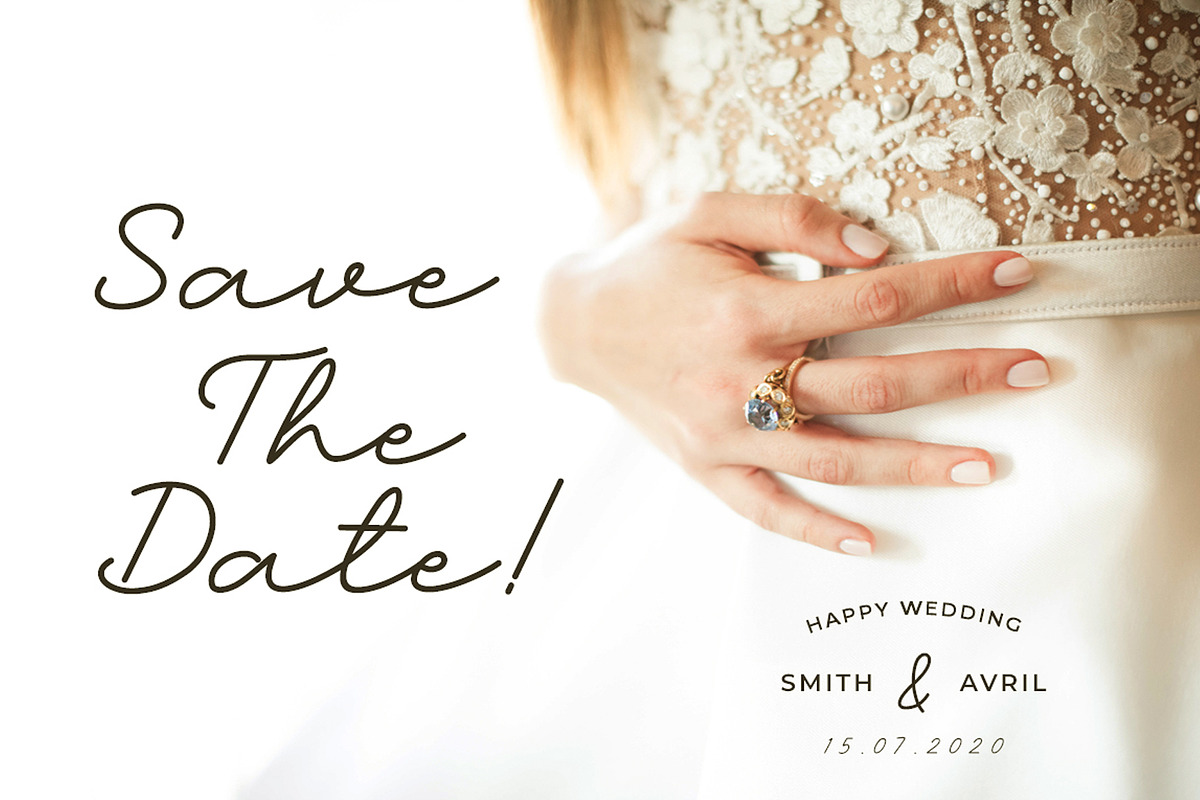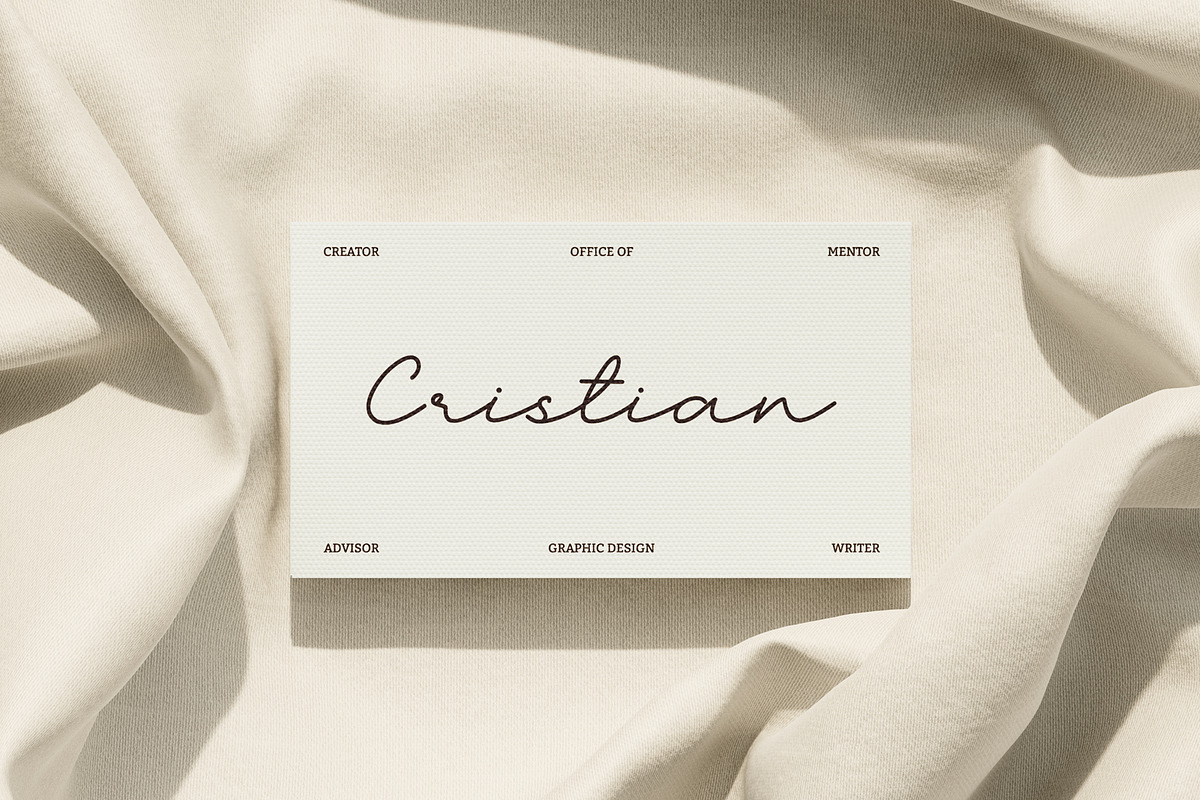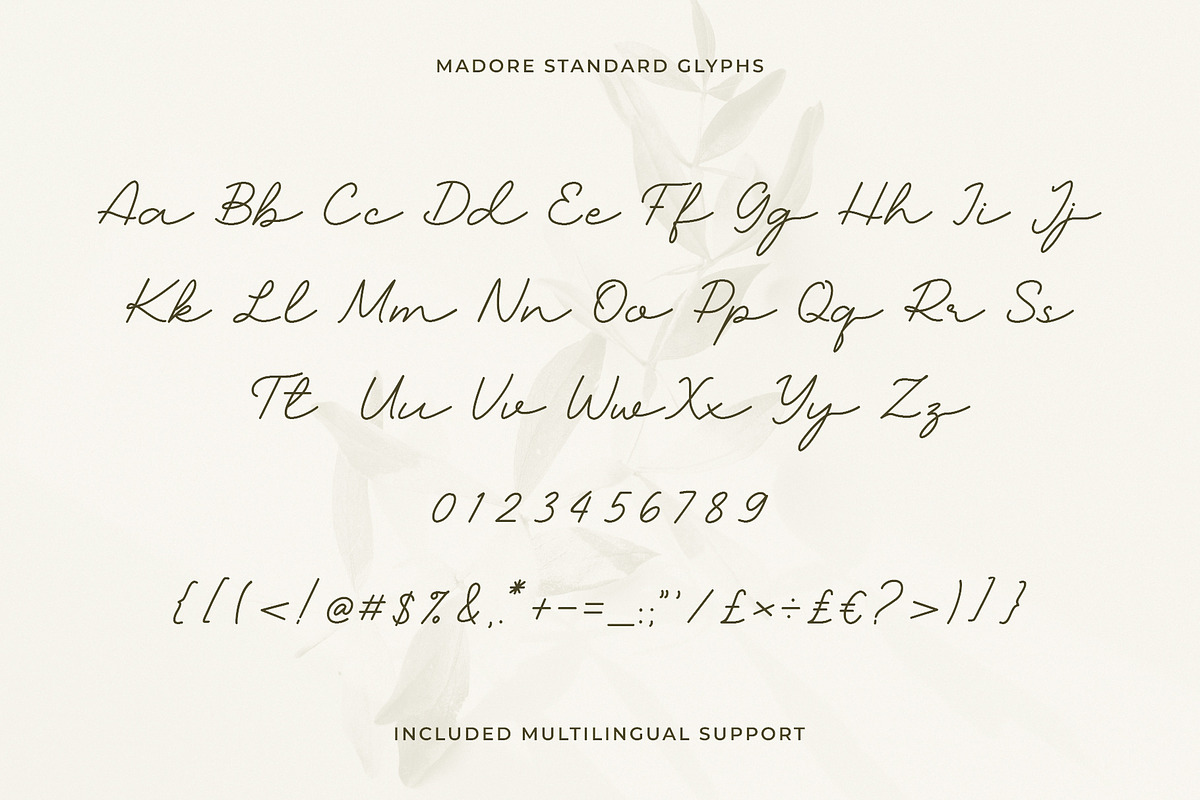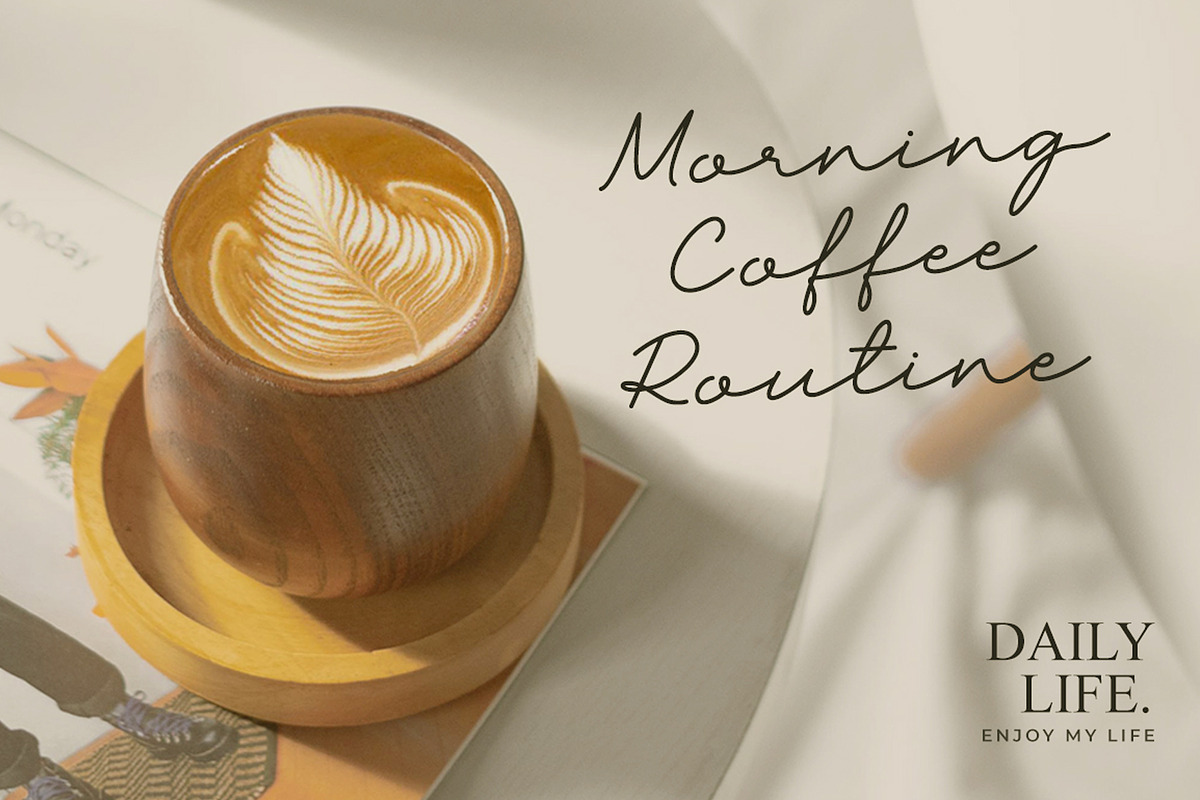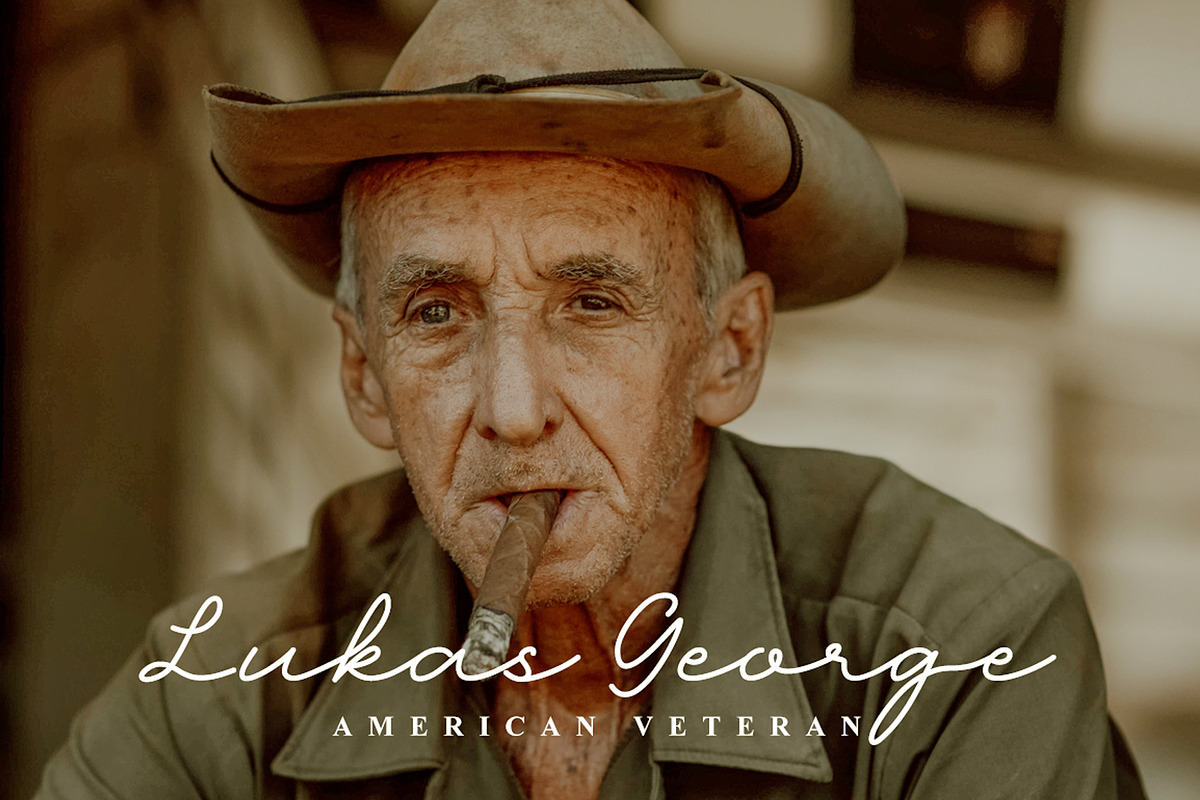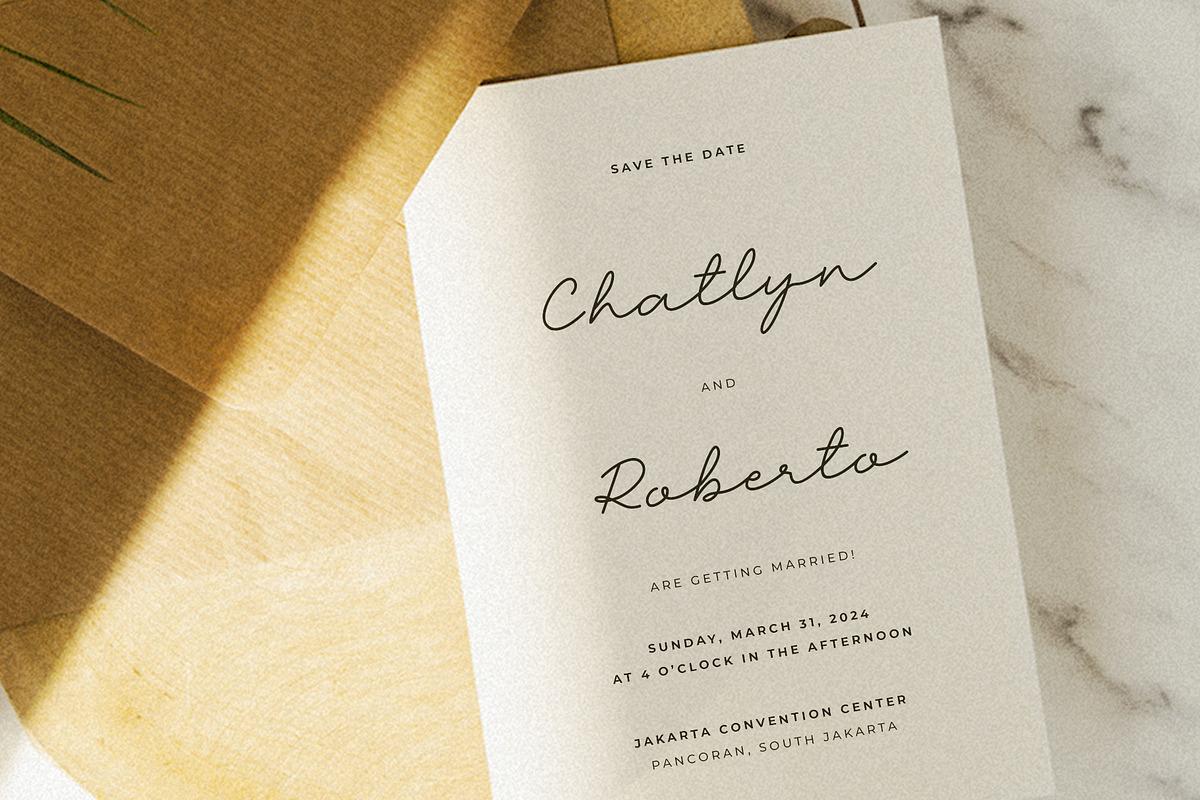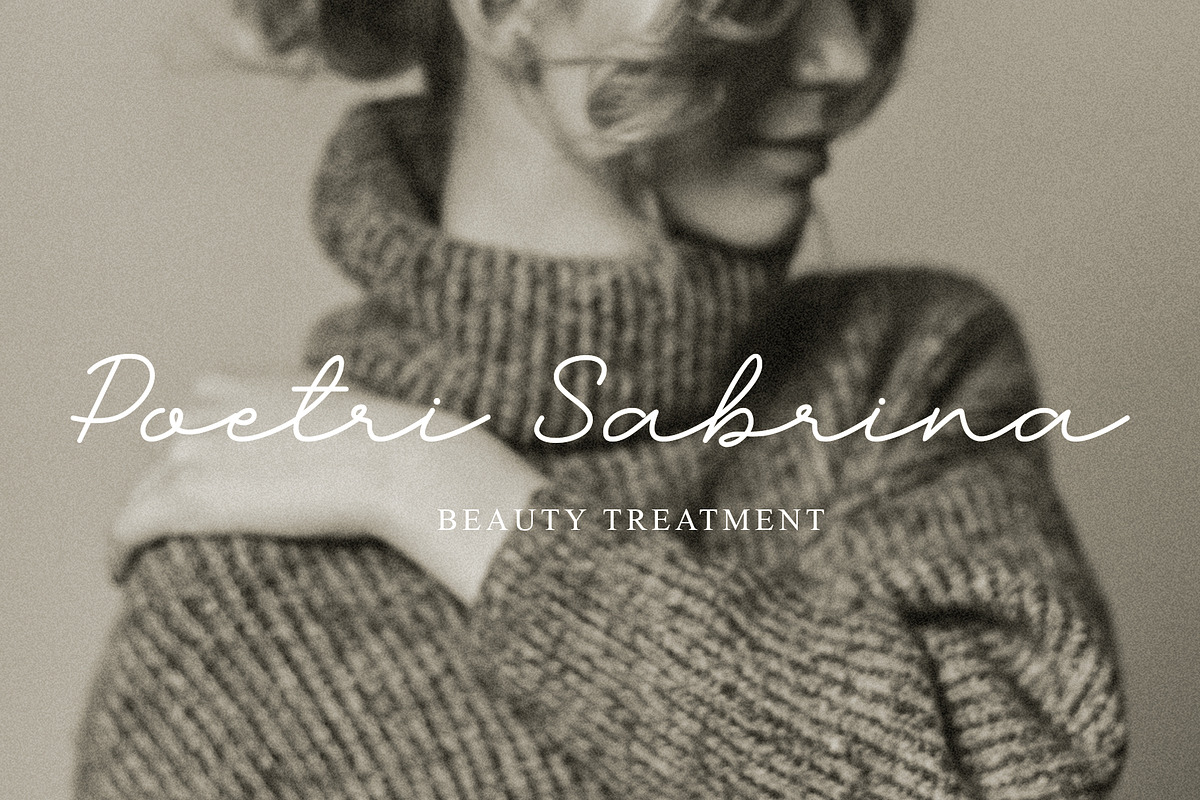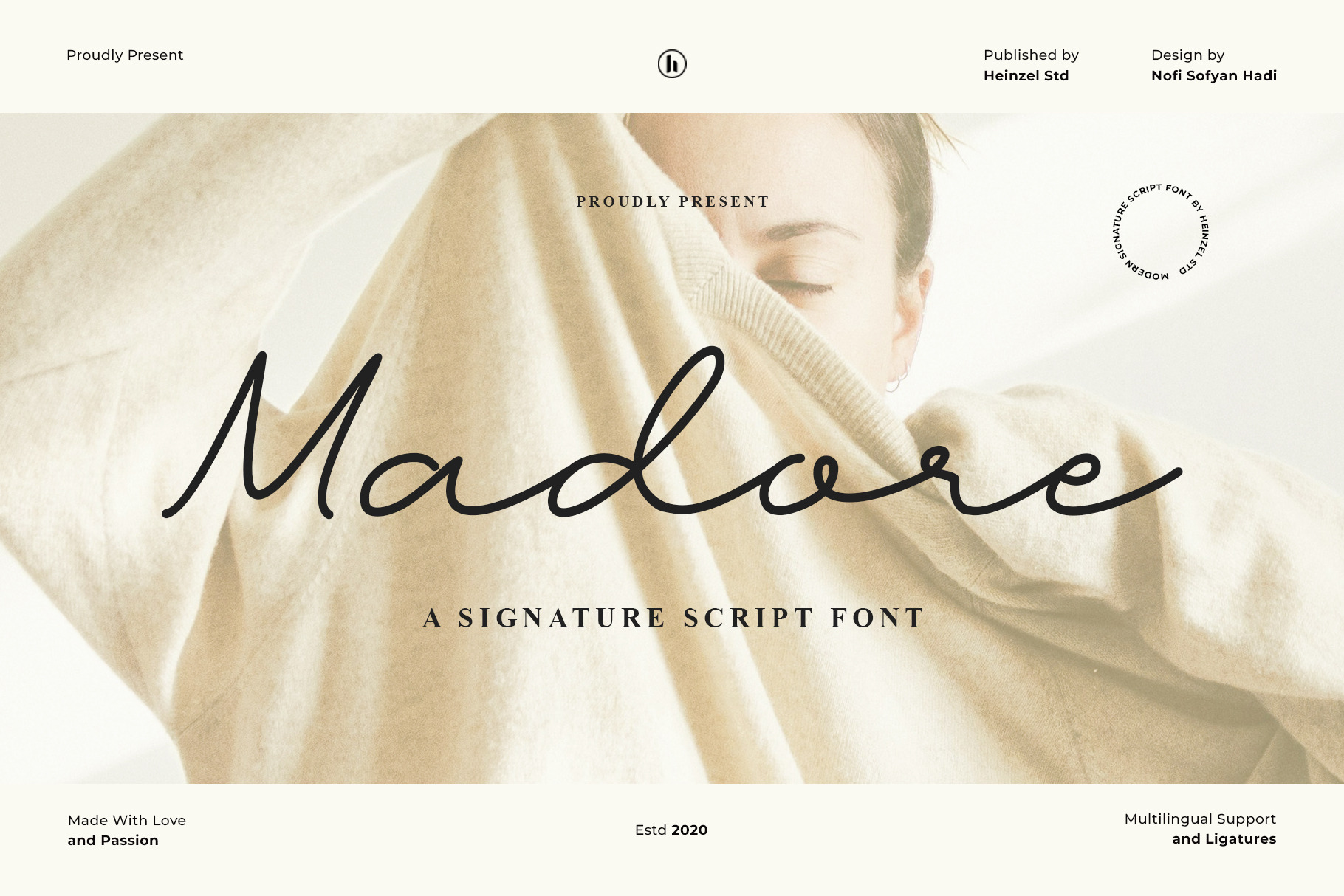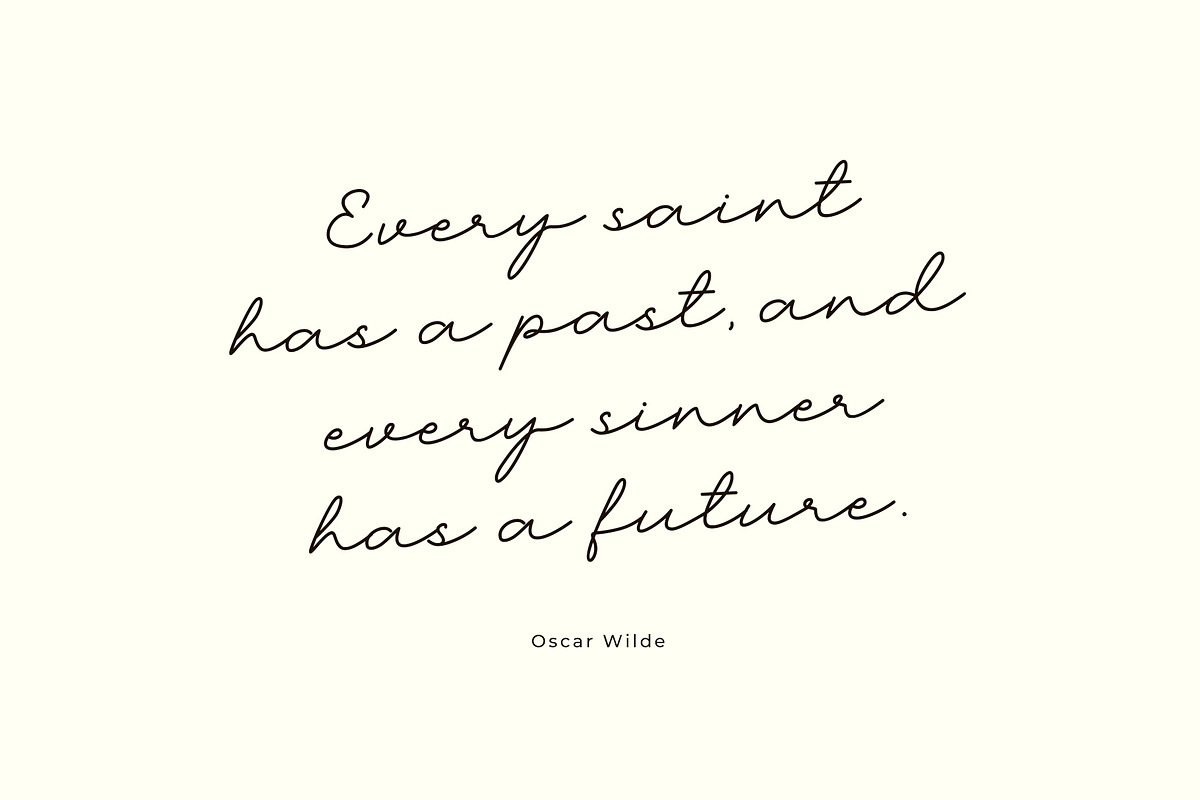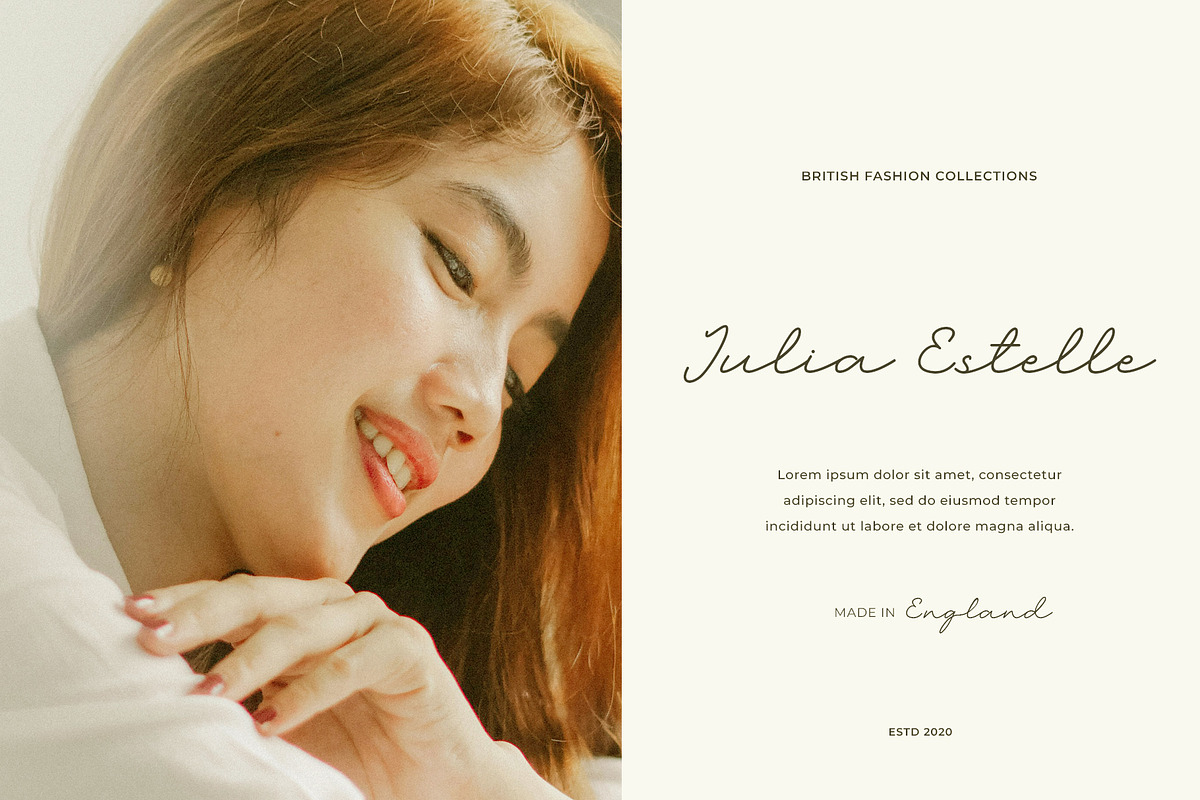
Madore Elegant Signature Script Font
Madore is an elegant signature script font crafted to bring a sophisticated, personal, and luxurious touch to your designs. With its smooth handwritten flow, graceful letter connections, and refined character, Madore captures the feeling of an authentic handwritten signature while maintaining a polished and modern appearance.
Perfect for fashion branding, beauty products, wedding stationery, logos, photography, social media, packaging, invitations, editorial designs, and personal branding, Madore adds an effortlessly stylish personality to every project.
Its flowing script style works beautifully for both minimalist compositions and high-end creative layouts. Multilingual support and ligatures provide additional flexibility, helping you create natural-looking typography with a distinctive handcrafted feel.
Whether you're designing a luxury brand identity, romantic wedding invitation, boutique logo, or stylish social media graphic, Madore is designed to make your words feel personal, elegant, and memorable.